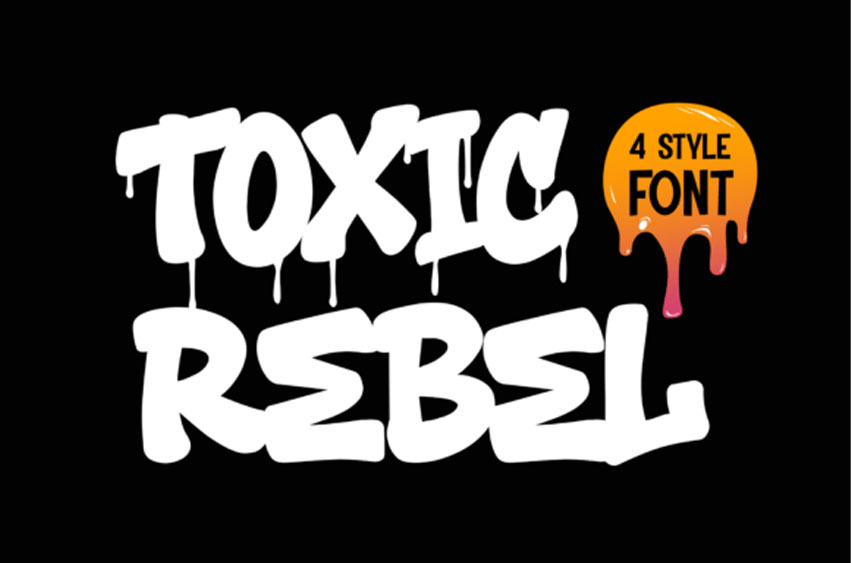
Toxic Rebel Font
Toxic Rebel Font is a distinctive graffiti-inspired font that encapsulates the authentic spirit of edgy urban street culture with a streak of clean rebellion. Available in four dynamic styles – Clean Regular, Drip, Outline Regular, and Outline Drip- it offers an array of creative versatility for every project. Opt for solid, bold graffiti strokes, indulge in the raw energy of dripping styles, or unleash your creativity with outlined versions.
Derived from the restless streets full of tags, throw-ups, and raucous street art energy, Toxic Rebel transforms this vivacious vibe into a unique digital alphabet. This gives creators an original instrument to infuse palpable urban energy into their designs. The Clean Regular style is robust and distinct, considered ideal for impactful logos and attention-grabbing headlines. The Drip style adds a dash of daring attitude, instantaneously infusing a raw, rebellious flavor to the street culture niches.
Delve further into creative exploration with the Outline and Outline Drip styles, designed to be perfectly suited for layered compositions, shadow effects, and striking titles. Toxic Rebel, simple yet undeniably cool, comes with a bold persona. From skate culture branding and music album covers to event flyers and trendy social media campaigns – Toxic Rebel ensures every design resonates powerfully with the language of the street.
Toxic Rebel isn’t just confined to graffiti-centered projects; it extends its reach to modern branding, trendy merchandise, and daring advertising campaigns, marking its versatility. Let your designs speak the audacious narrative of the street with Toxic Rebel.